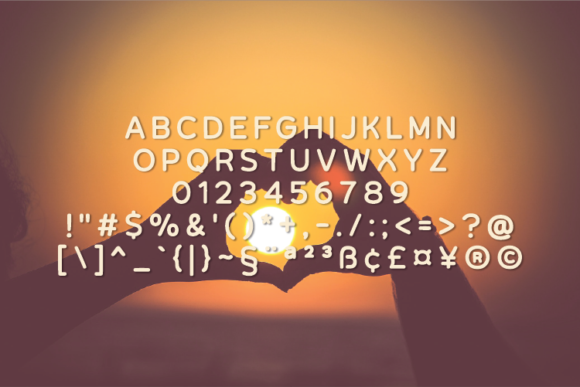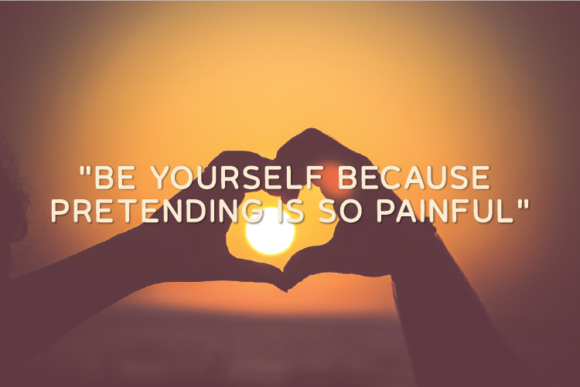
Introduction to Loventa Font
Have you ever stared at a blank canvas, feeling the weight of a creative project’s expectations? You’ve got an idea, but the perfect font to bring it to life is nowhere to be found. That’s where Loventa Font comes in – a game-changing design resource that’s sure to elevate your work.
With its clean, thin, and smooth vibe, Loventa Font is the perfect addition to any high-quality design. Whether you’re working on a logo, brochure, or website, this versatile font is sure to deliver. And the best part? It’s free to download, making it an accessible choice for designers of all levels.
What sets Loventa Font apart is its transparent background, allowing it to seamlessly integrate with any design. This means you can focus on the creative aspects of your project, knowing that your font choice won’t compromise the overall aesthetic.
Honest Review: Loventa Font
As a designer, I’m always on the lookout for high-quality design resources that can elevate my creative projects. Recently, I had the opportunity to try out the Loventa Font, and I must say it’s been a great addition to my toolkit.
What works well with the Loventa Font is its versatility and modern aesthetic. It’s perfect for projects that require a sleek and sophisticated look, from branding and logos to digital interfaces and presentations. The font’s clean lines and minimalist design make it an excellent choice for designers who value simplicity and elegance.
However, I do have a few reservations about the Loventa Font. One of the limitations is that it may not be suitable for projects that require a more playful or whimsical tone. Additionally, some users may find the font’s minimalist design to be too simple or lacking in character.
Overall, I’m impressed with the Loventa Font’s performance and would definitely recommend it to designers who value high-quality, modern typography. While it may not be the best fit for every project, it’s an excellent resource to have in your design arsenal.
The Loventa Font is suitable for a wide range of creative projects, including graphic design, branding, and digital art. Its high-quality design and versatility make it an excellent choice for designers and artists seeking a reliable font resource.